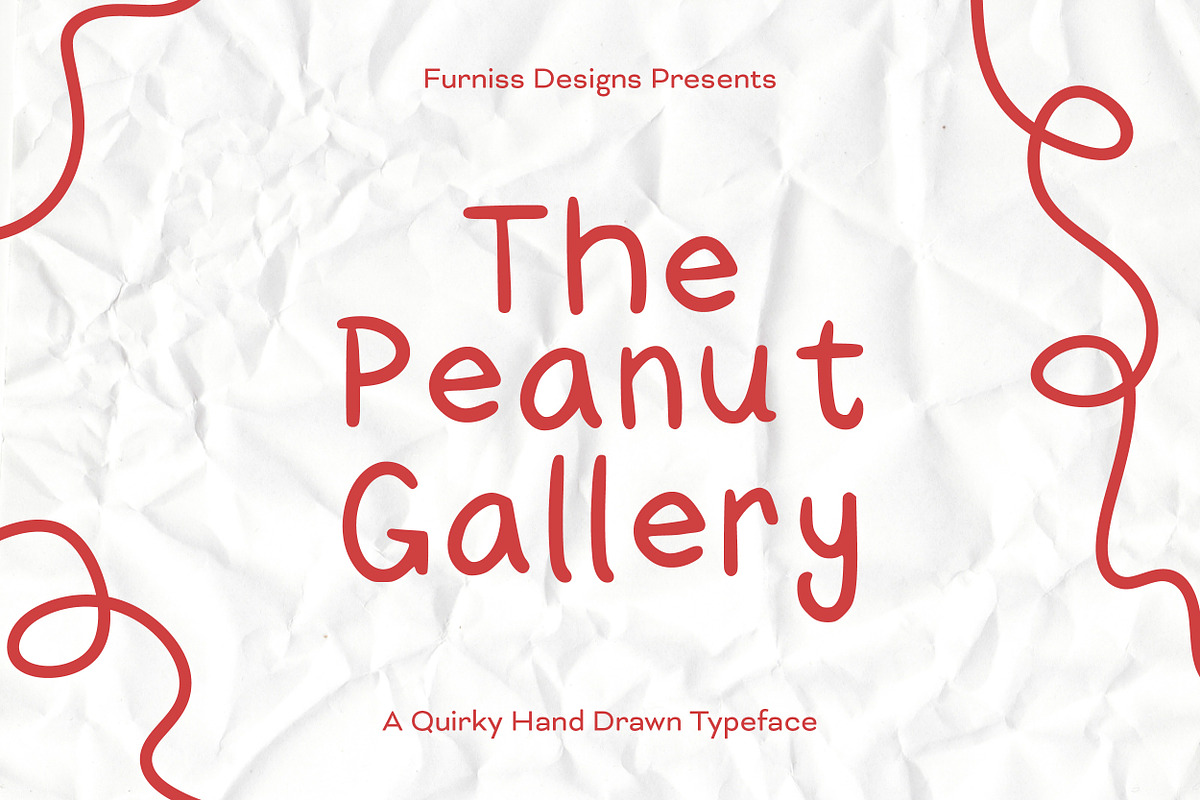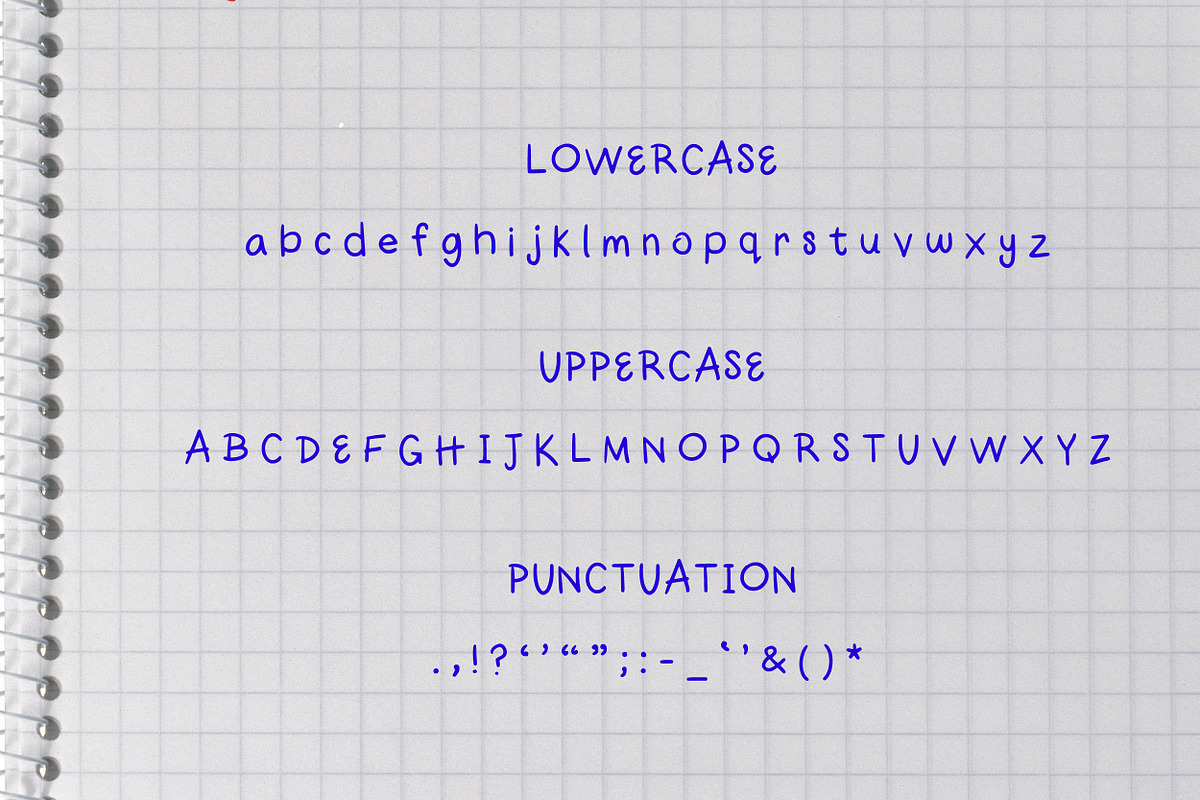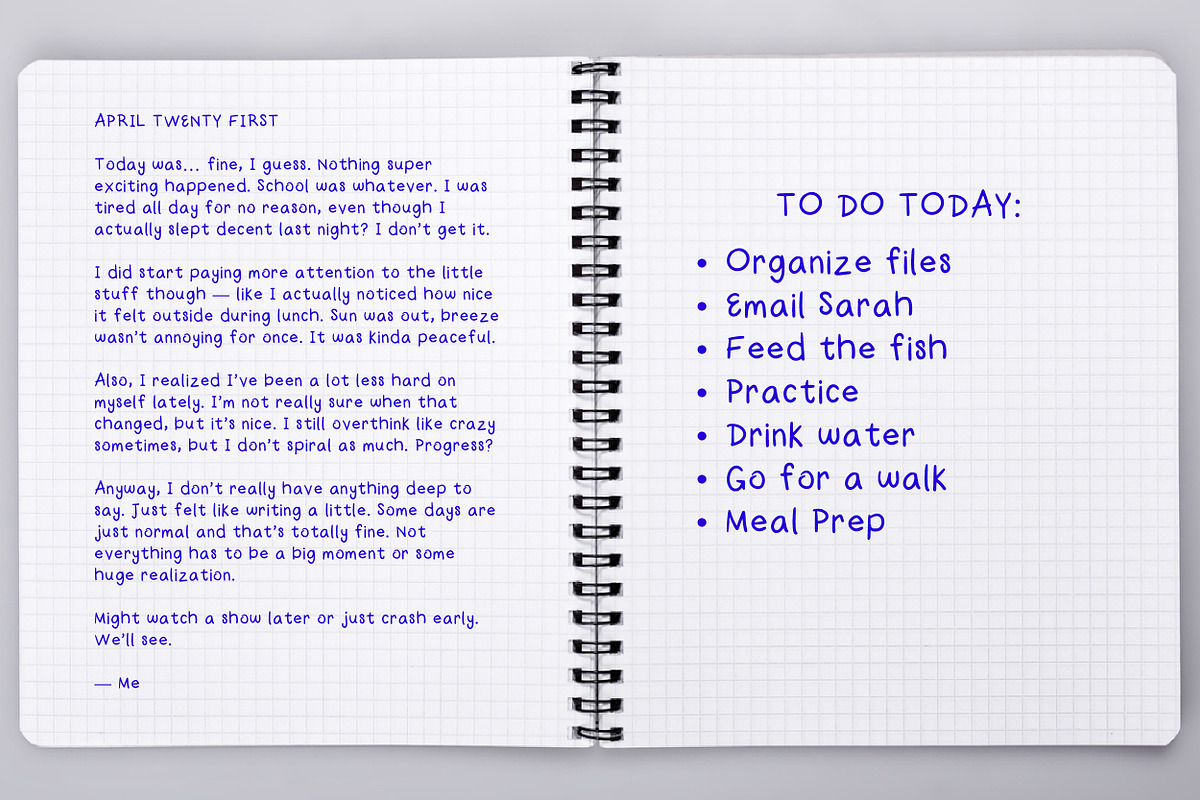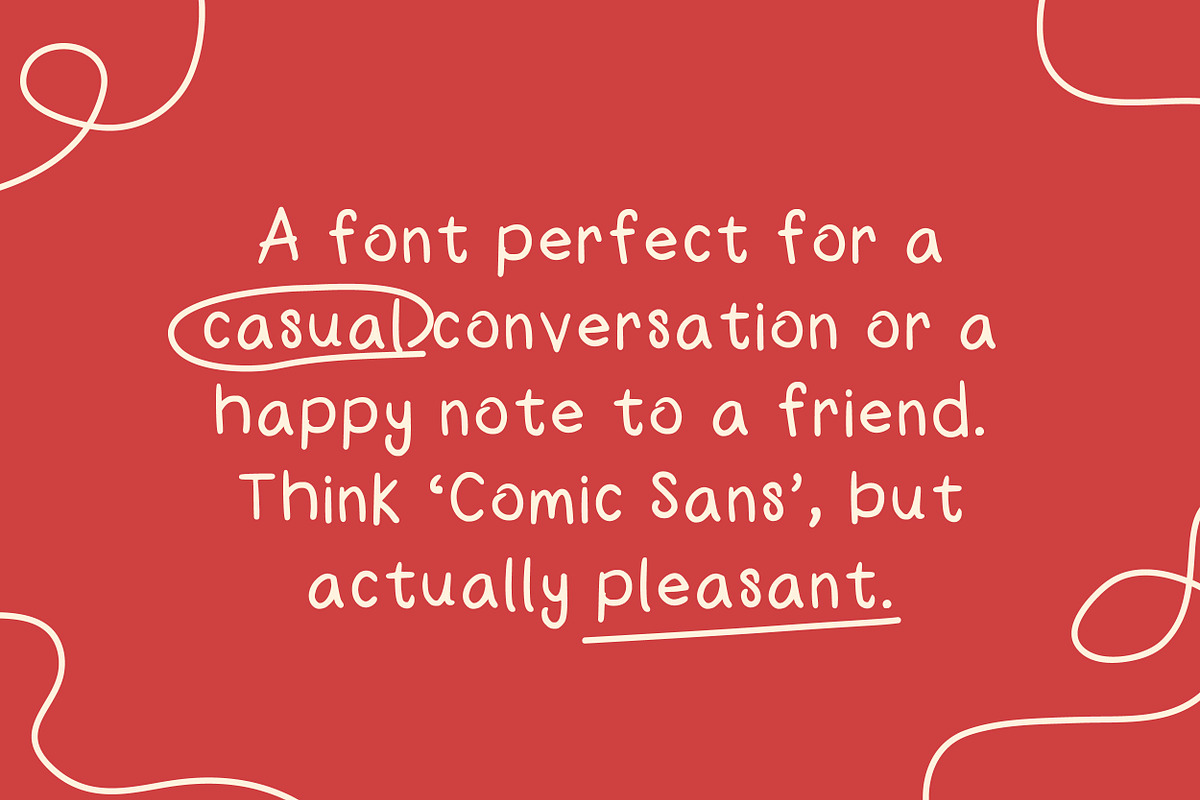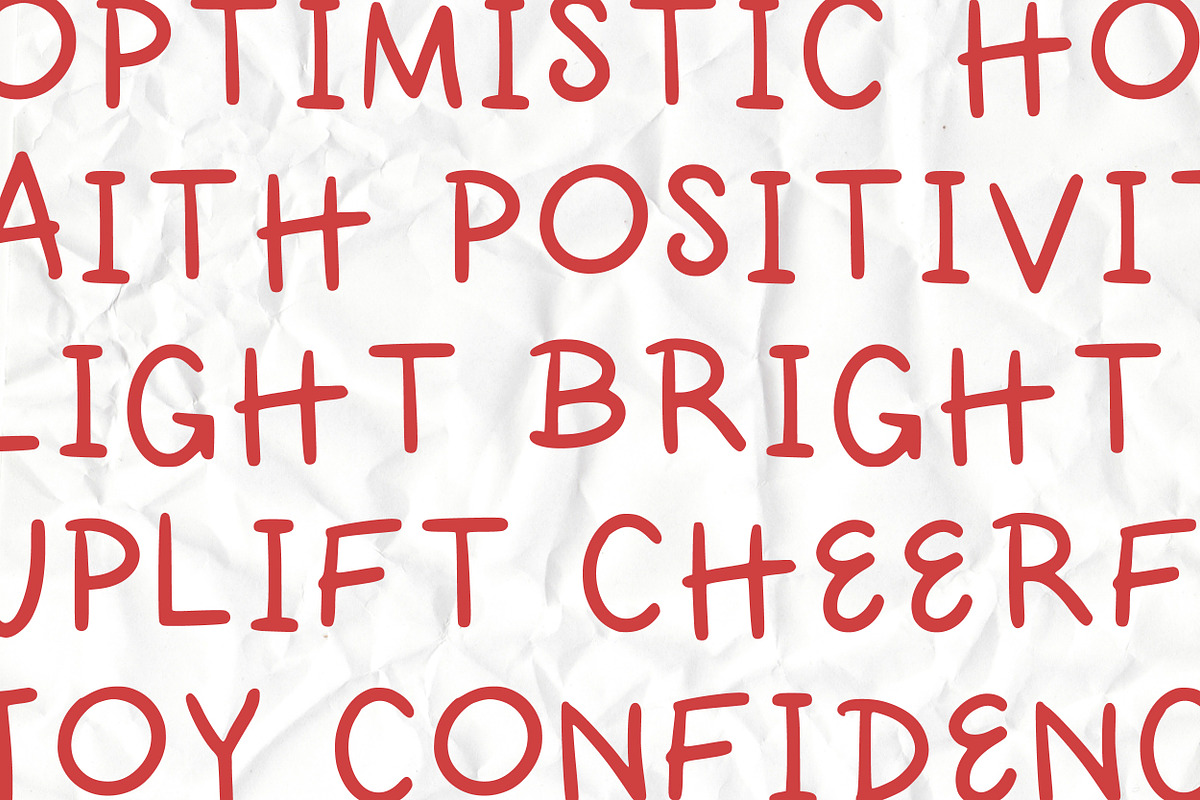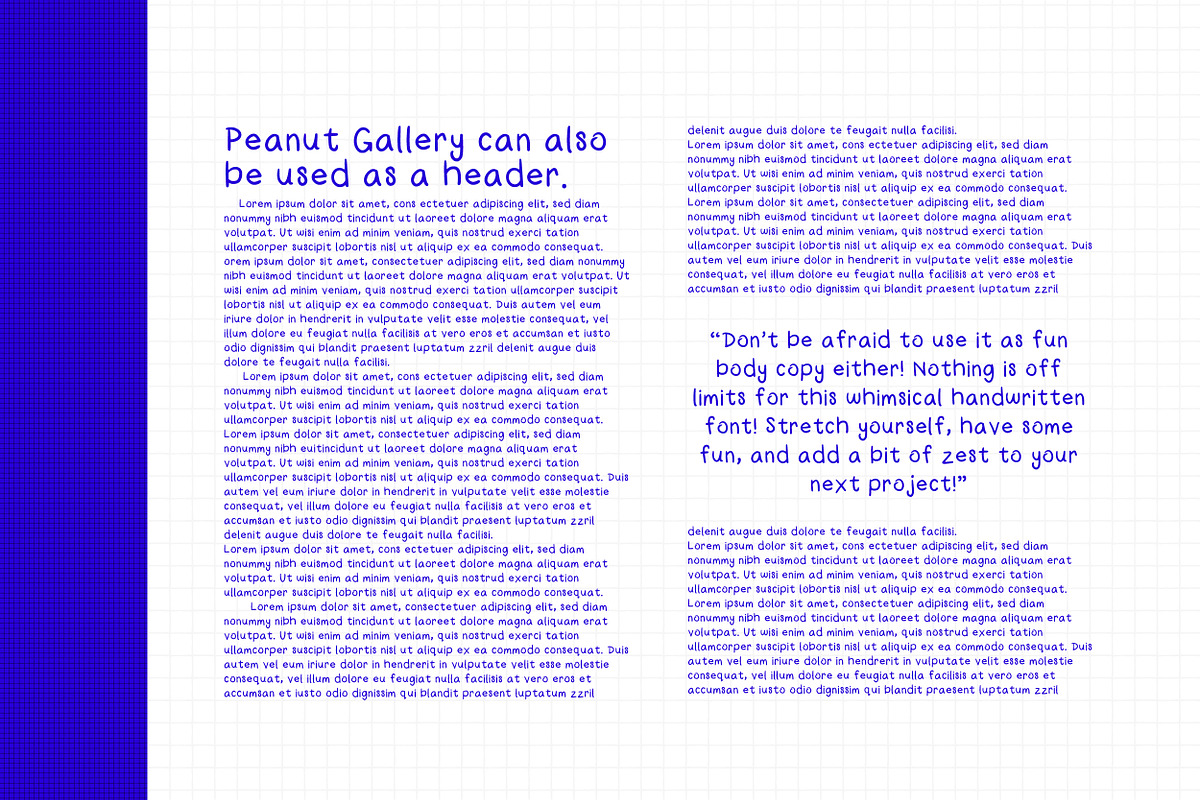
Peanut Gallery: A Handwritten Font
The Peanut Gallery - A quirky handwritten font.
This cheerful font is perfect for any project. Inspired by my own handwriting when I was a teenager, this handwritten font is dripping with individuality and personality. Make your next design unique and whimsical with The Peanut Gallery.
This font can be used to create anything from logos, invitations for parties or weddings, quirky home decor, packaging, party decorations, and so much more.